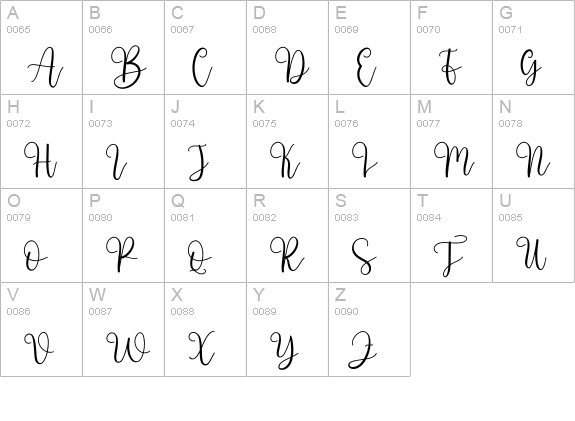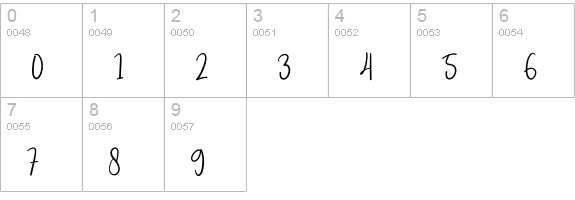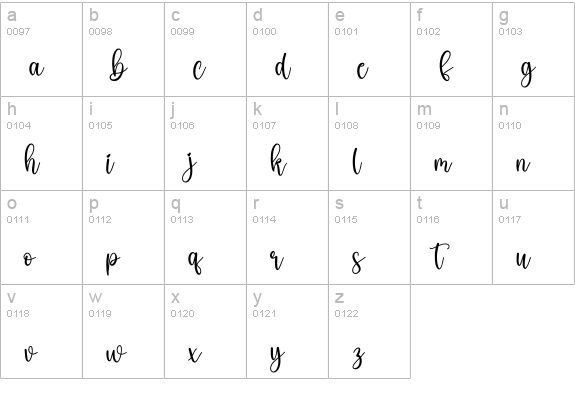
Sweet Almond Font Details
Sweet Almond is a free for personal use font in the Script > Handwritten category, designed by scratchones. It has been downloaded 58 times and is available for Windows, Mac and Linux.
Introducing Sweet Almond font, a charming and elegant typeface that exudes a sense of warmth and sophistication. With its delicate curves and stylish flair, Sweet Almond is perfect for adding a touch of sweetness to your projects. This versatile font is ideal for a wide range of designs, from invitations and greeting cards to branding and packaging.